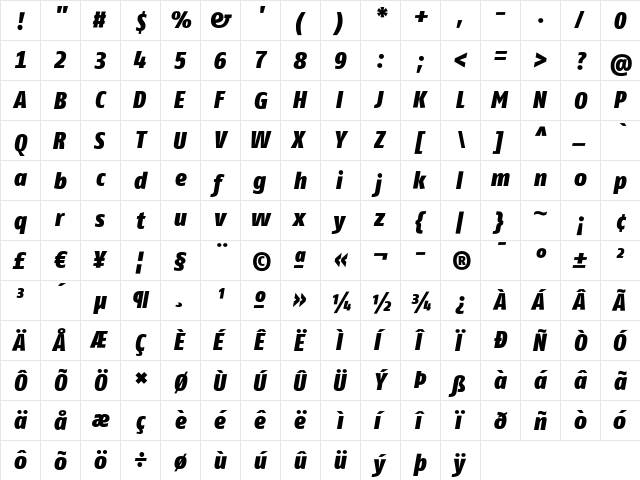
FagoCoTf-BlackItalic Bold Italic Font Preview
Design Context for FagoCoTf-BlackItalic Typeface
FagoCoTf-BlackItalic takes a measured approach to typography — its balanced proportions and neutral character make it a reliable workhorse for both digital and print work. The slanted form adds forward momentum and visual energy. The heavy weight commands attention and anchors typographic hierarchies.
Pro Tip: Try FagoCoTf-BlackItalic for annotation and caption copy alongside an upright companion — the contrast in angle creates a dynamic but ordered typographic system.